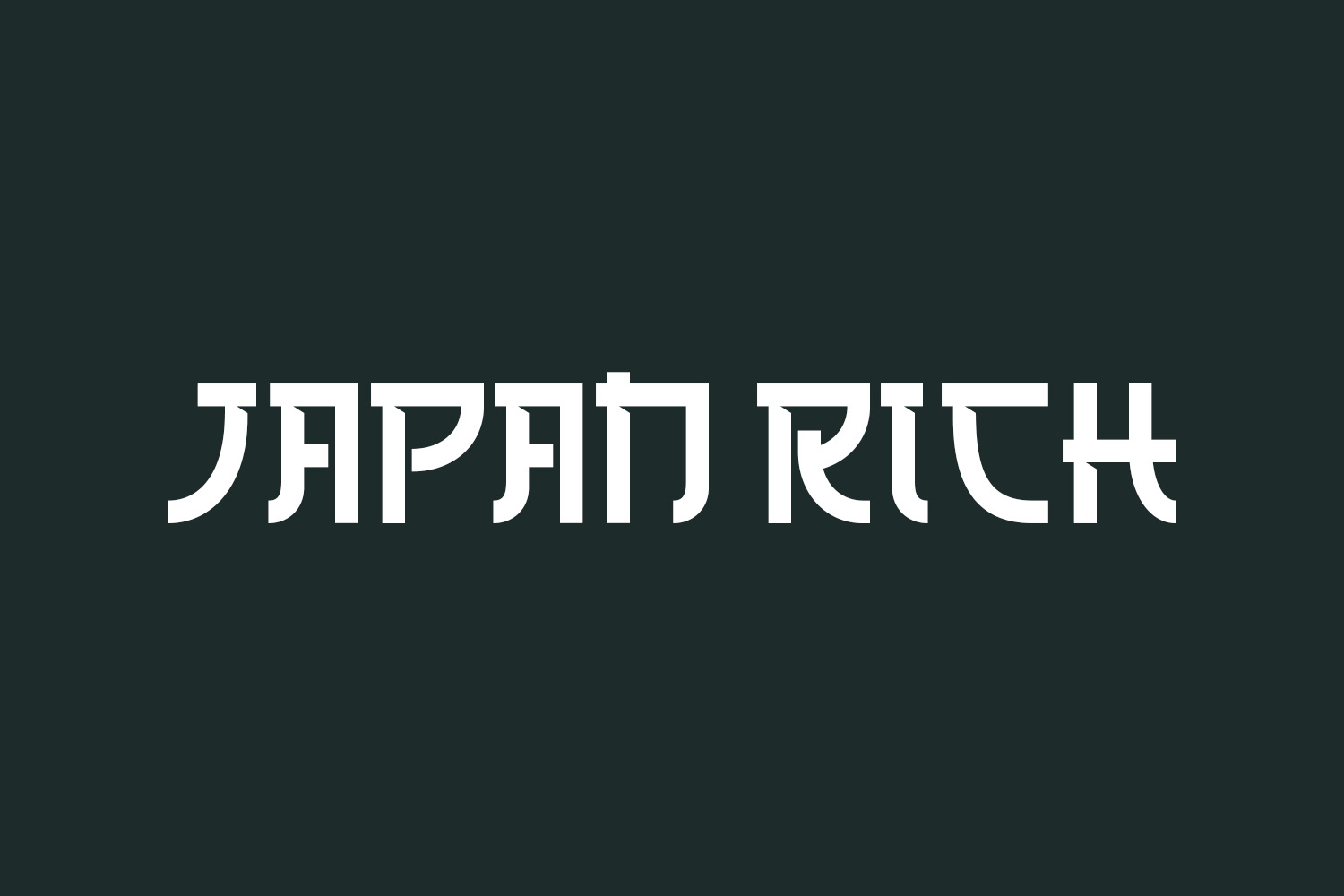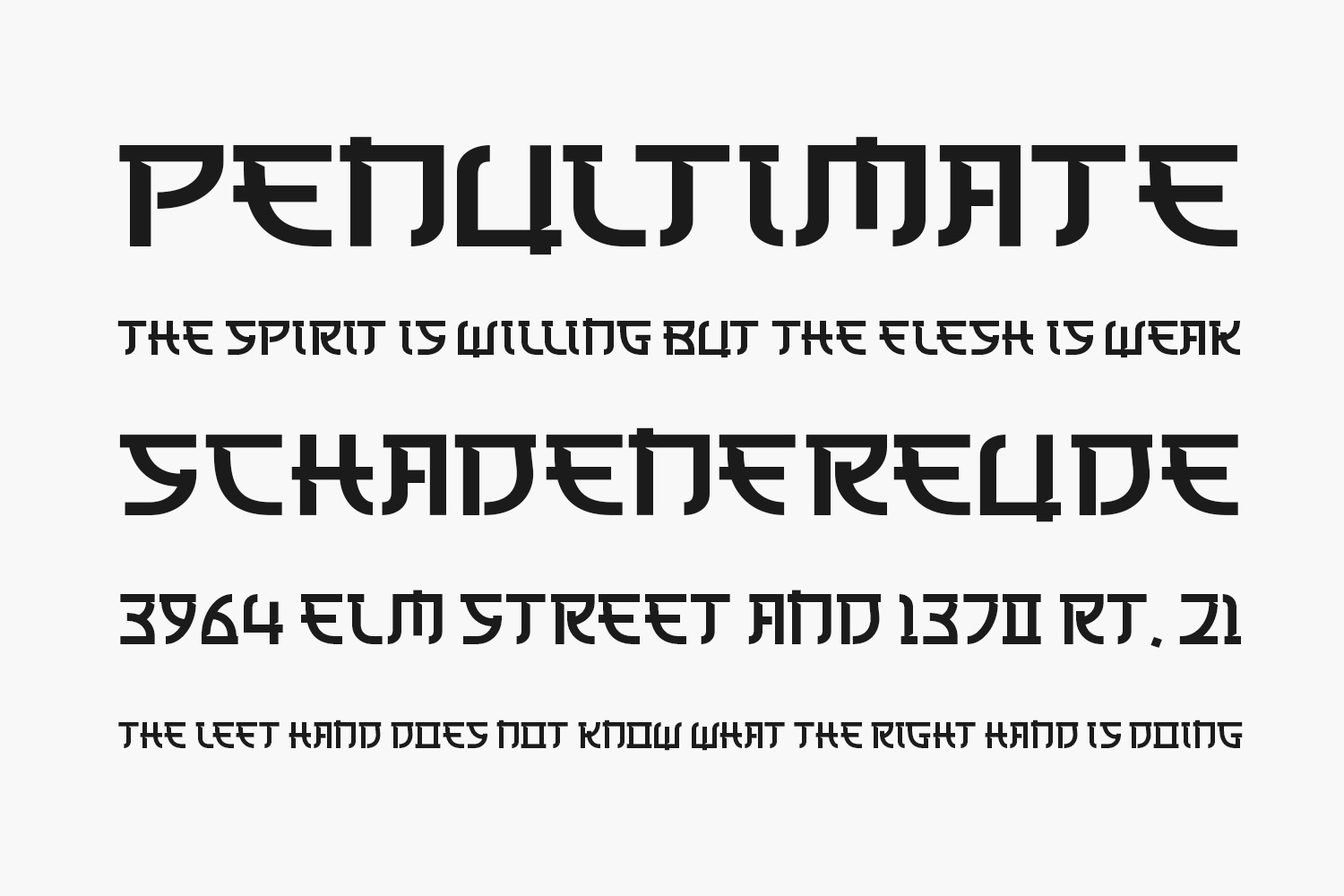
Introducing Japan Rich Free Font – a display font that exudes coolness, boldness, and authenticity. With its exquisite and distinctive characters, this font seamlessly integrates into an extensive design repertoire, promising to stand out remarkably across diverse contexts. Japan Rich Free Font is free for personal use only. Please purchase the full version for commercial use.
Designed by Nirmana Visual